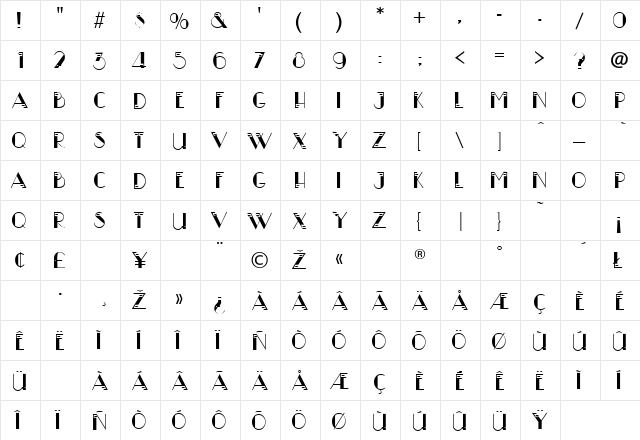
Twinkle Toes Regular
Design Context for Twinkle Toes Typeface
Twinkle Toes is a composed and adaptable typeface that performs quietly and consistently across a wide range of design contexts.